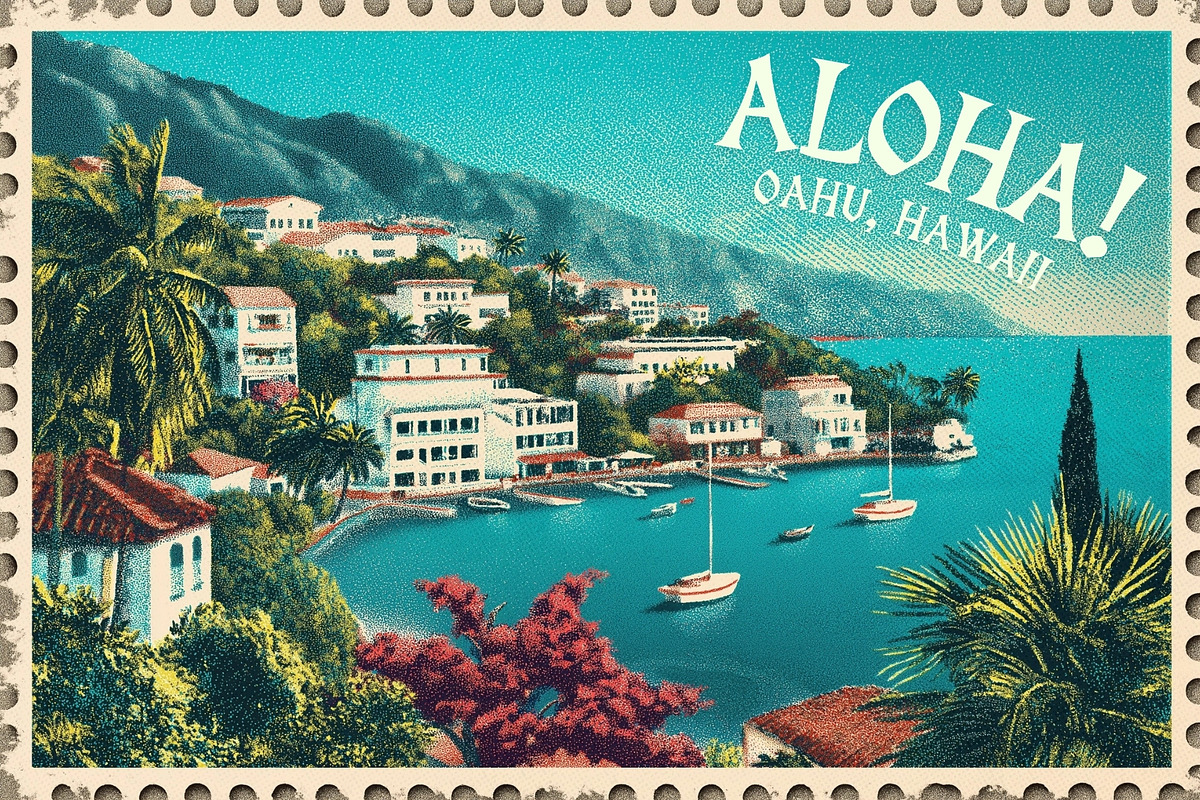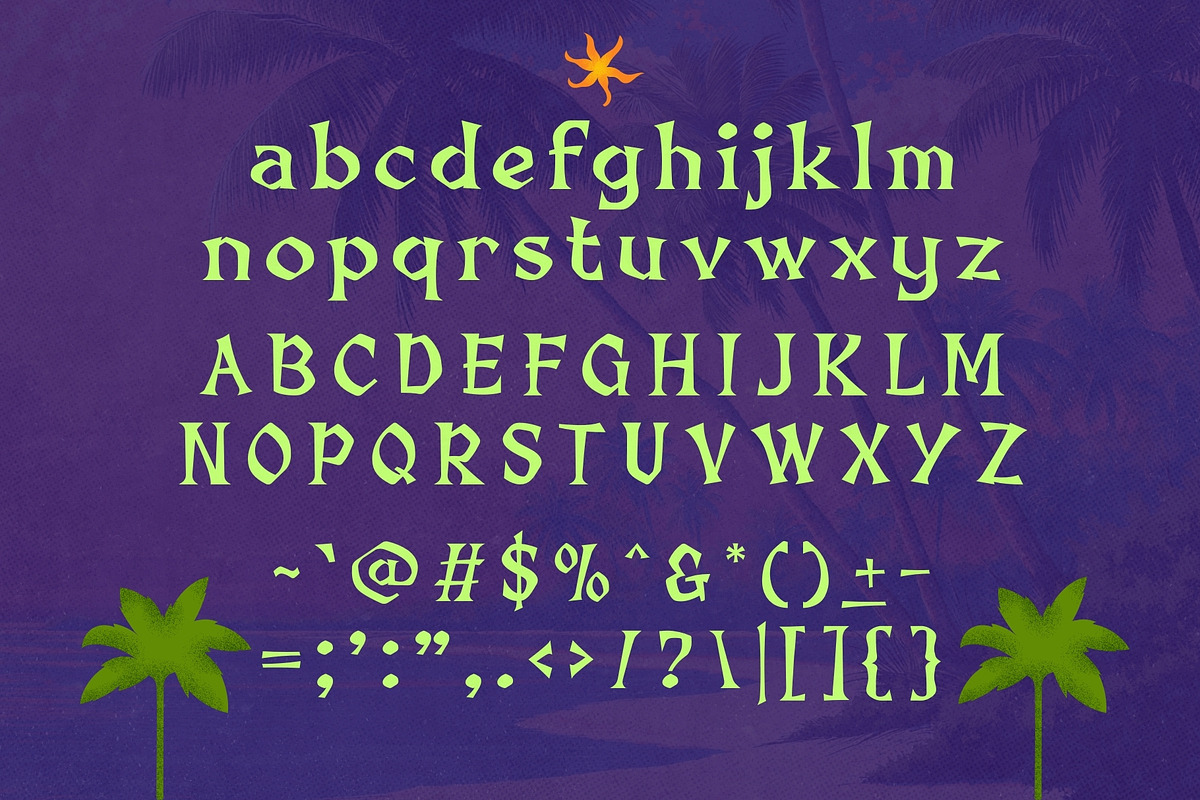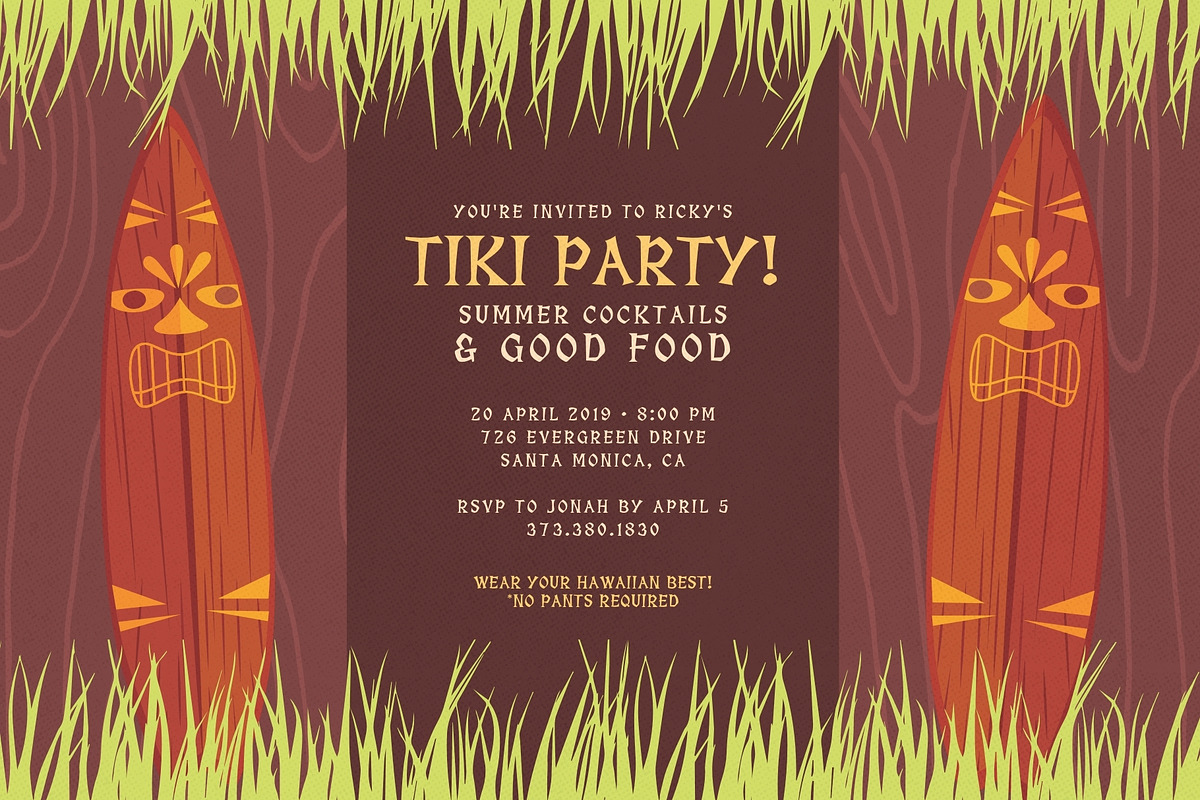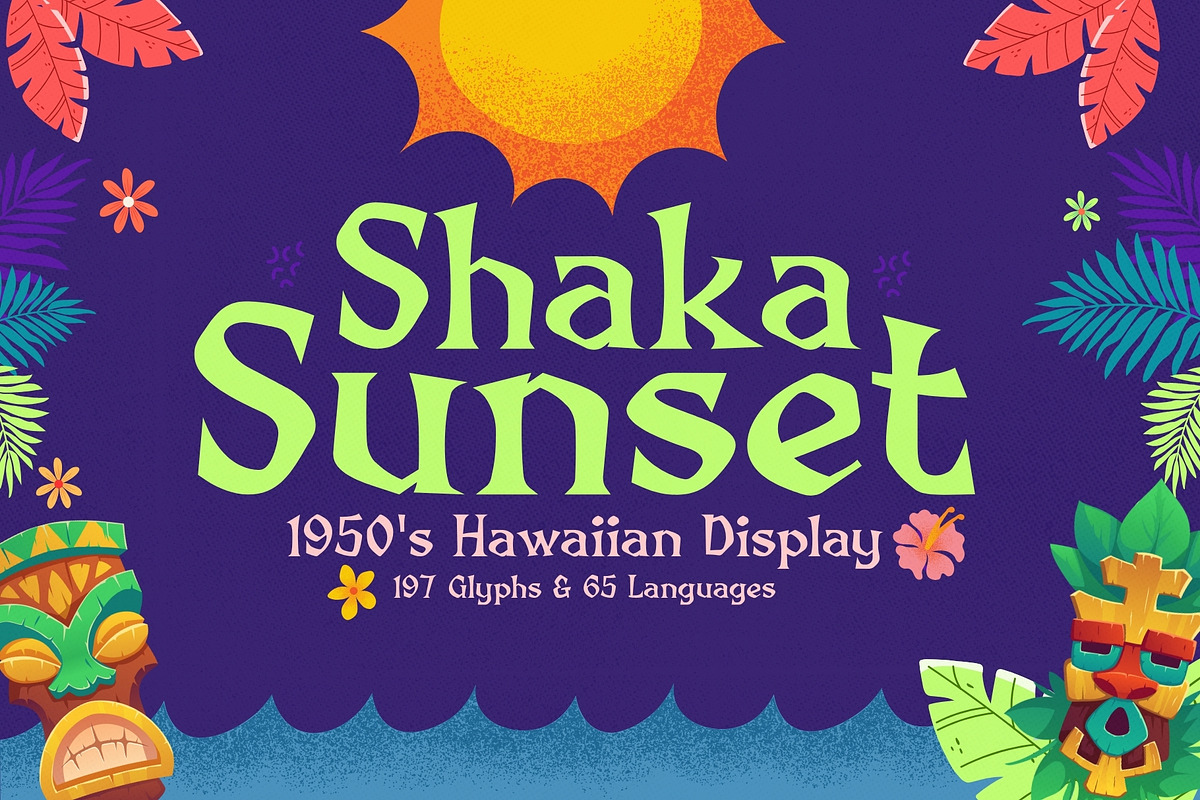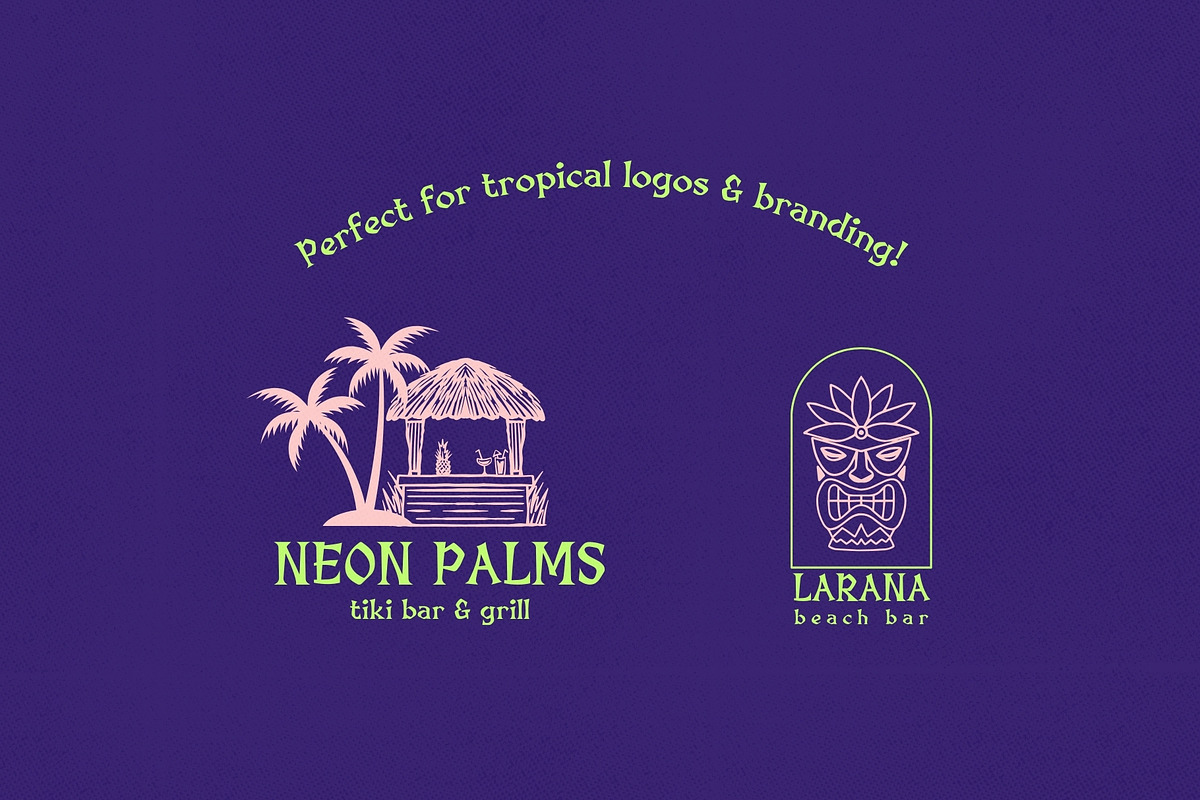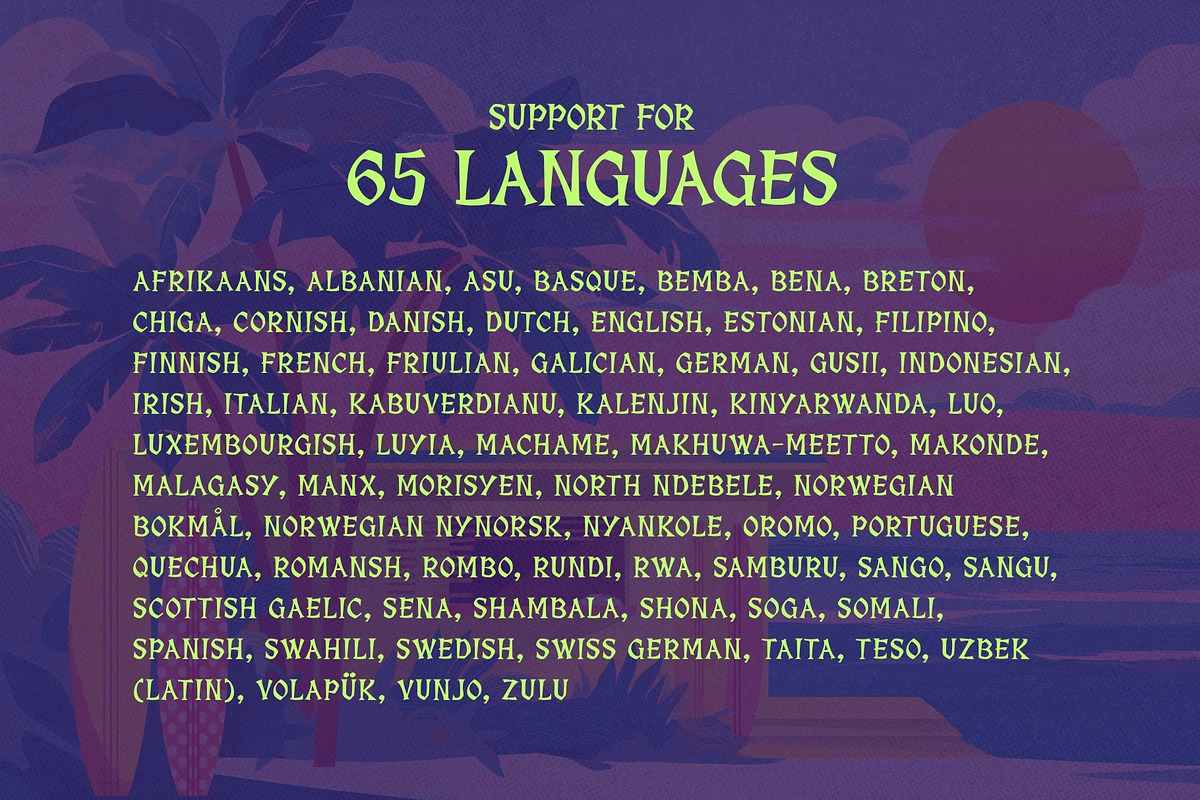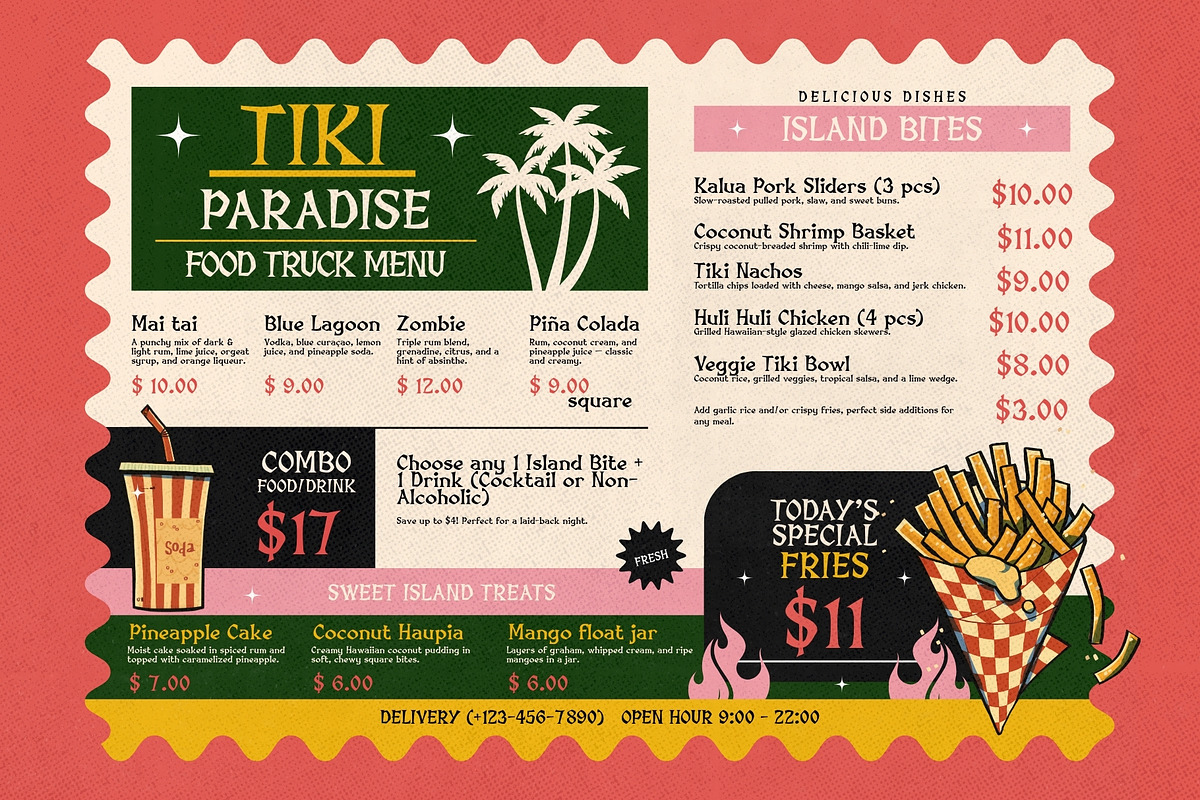
Shaka Sunset - 1950's Hawaiian Type
Say hello to Shaka Sunset, a warm and nostalgic typeface inspired by Hawaiian culture, vintage tiki signage, and the vibrant design energy of the 1950s. With sharp edges, hand-crafted charm, and a wonderfully imperfect flow, this typeface infuses your work with a natural human touch — relaxed, carefree, and full of island personality.
Shaka Sunset captures the retro spirit of sun-bleached surfboards, tiki bars, palm-lined beaches, and tropical adventure posters. Its playful irregularity brings authenticity and soul to every stroke, making your designs feel less mechanical and more alive.
Perfect for summer branding, tropical drink menus, beach party invitations, surf apparel, travel posters, retro signage, packaging, YouTube thumbnails, vacation merch, and anything that needs a taste of island happiness, this typeface delivers aloha vibes with effortless style.
Whether you're designing a cocktail menu or creating a retro surf campaign, Shaka Sunset brings the sunshine, the tiki charm, and the golden glow of a perfect island evening.